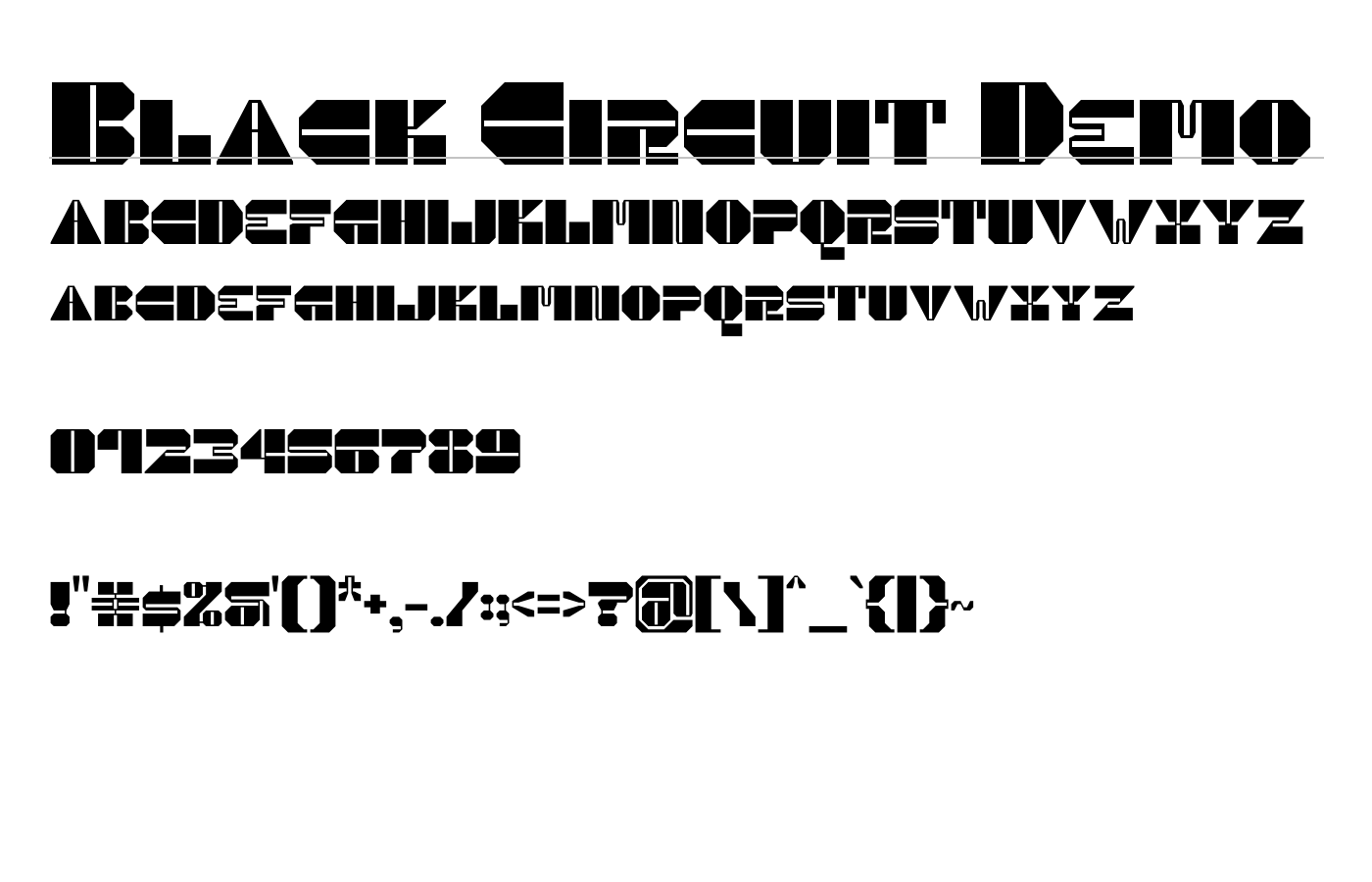
Black Circuit Font is a bold, geometric sans serif typeface with a strong technological and futuristic vibe. Its solid, stencil-like letterforms with sharp angles and cut-out details evoke a sense of modernity and digital precision, making it ideal for tech-themed branding, posters, and headlines that demand attention. This font works well for projects that want to convey innovation, strength, and a sleek, cyber-inspired aesthetic.
Black Circuit Font
About Black Circuit Font
| Font family | Black Circuit Font |
| Designer | Tri Kuncoro |